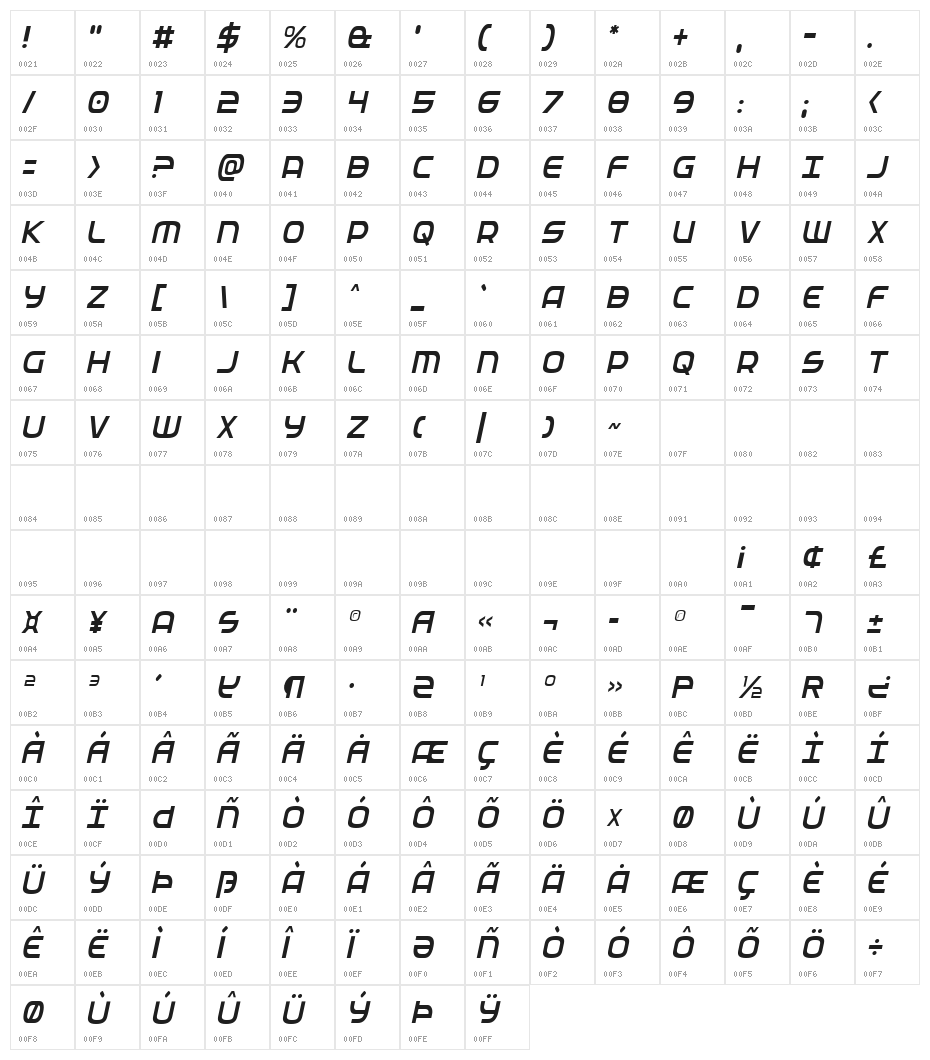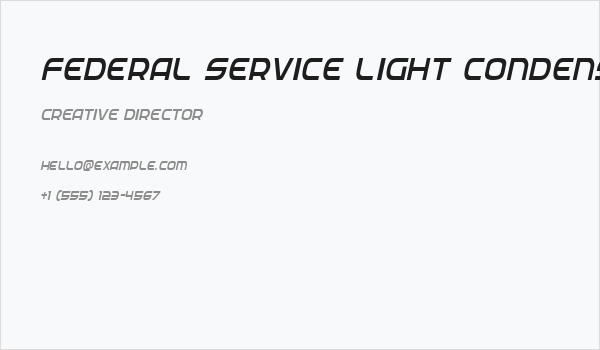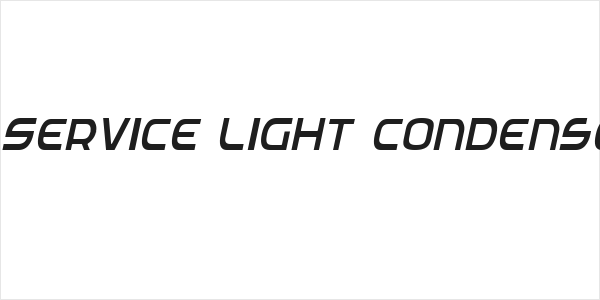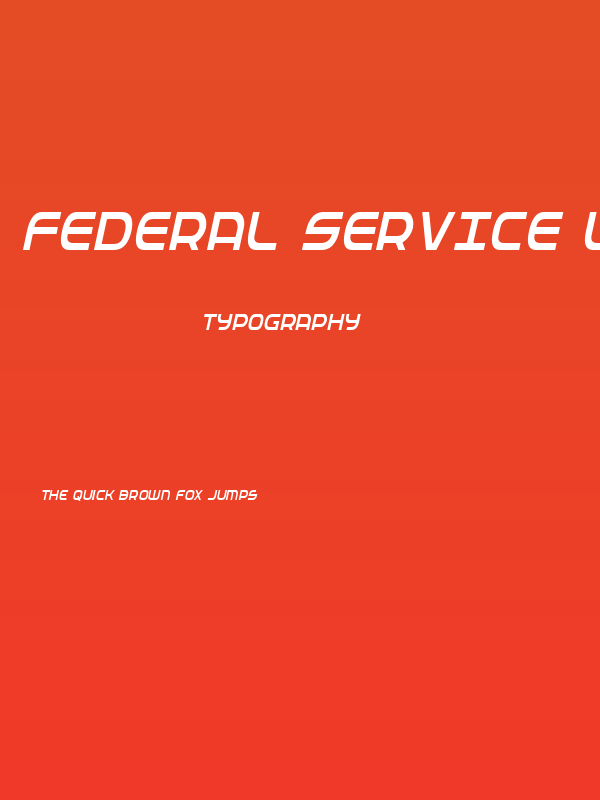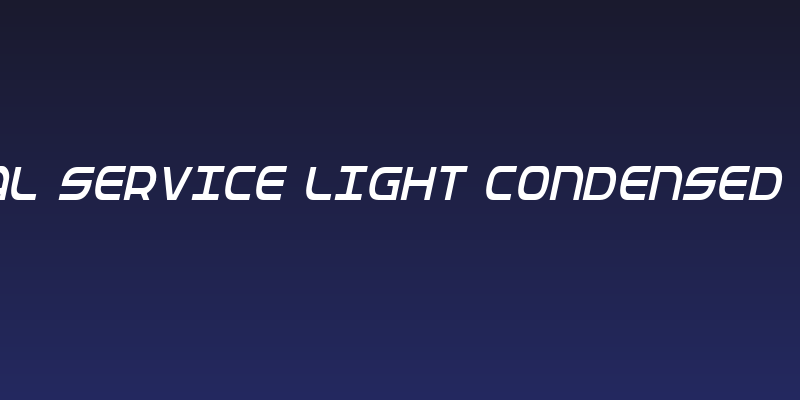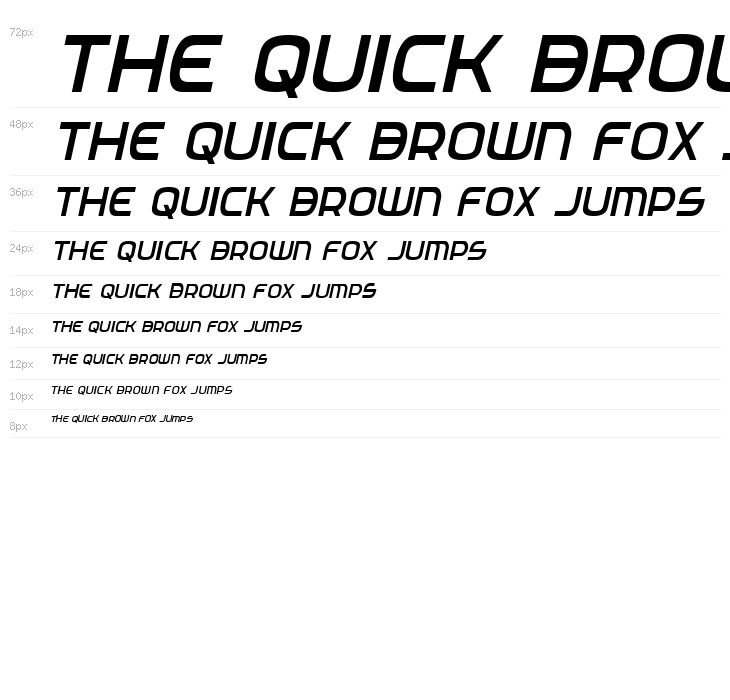
Federal Service Light Condensed Italic Font
Federal Service Light Condensed Italic Description
This font features a sleek and modern design with a condensed structure, making it ideal for space-saving applications. The italic style adds a dynamic and forward-leaning appearance, enhancing its contemporary feel. Each character is crafted with precision, showcasing a uniform stroke width that maintains readability while offering a stylish edge. The font's clean lines and geometric shapes contribute to its professional and polished look, suitable for various design contexts.
| Proposed Projects | Ideal for branding, advertising, and editorial design projects where a modern and space-efficient typeface is required. |